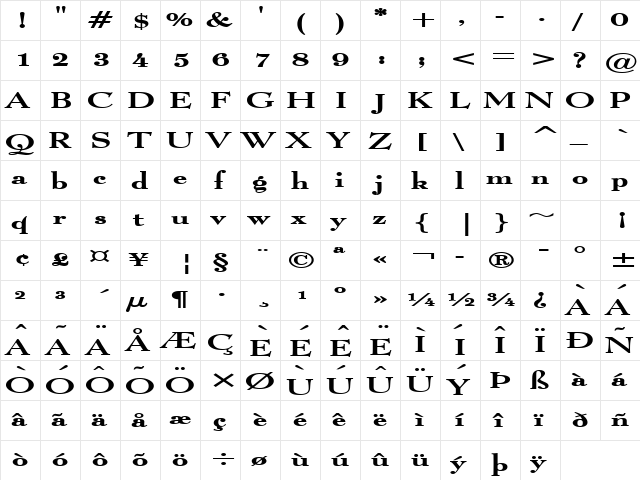
Luciano Extended Bold Font Preview
Luciano Extended Bold
Design Context for Luciano Extended Typeface
Luciano Extended takes a measured approach to typography — its balanced proportions and neutral character make it a reliable workhorse for both digital and print work. Its bold stroke weight gives it real presence on the page.